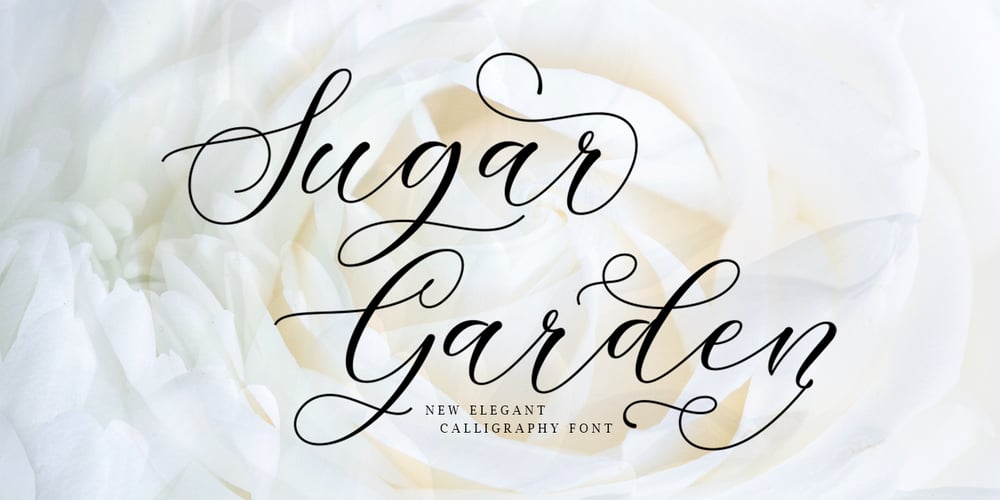
Sugar Garden Font Family was designed by Muhajir Akarim and published by Soft Creative. Sugar Garden contains 1 styles and family package options. Sugar Garden Script is a new modern script font with an irregular baseline. Trendy and feminine style. Sugar Garden looks lovely on wedding invitations, thank you cards, quotes, greeting cards, logos, business cards and more. Perfect for using in ink or watercolour. Including initial and terminal letters, alternates and multiple language support.I made this font very carefully so that each letter looked very unique and had various beautiful alternatives.